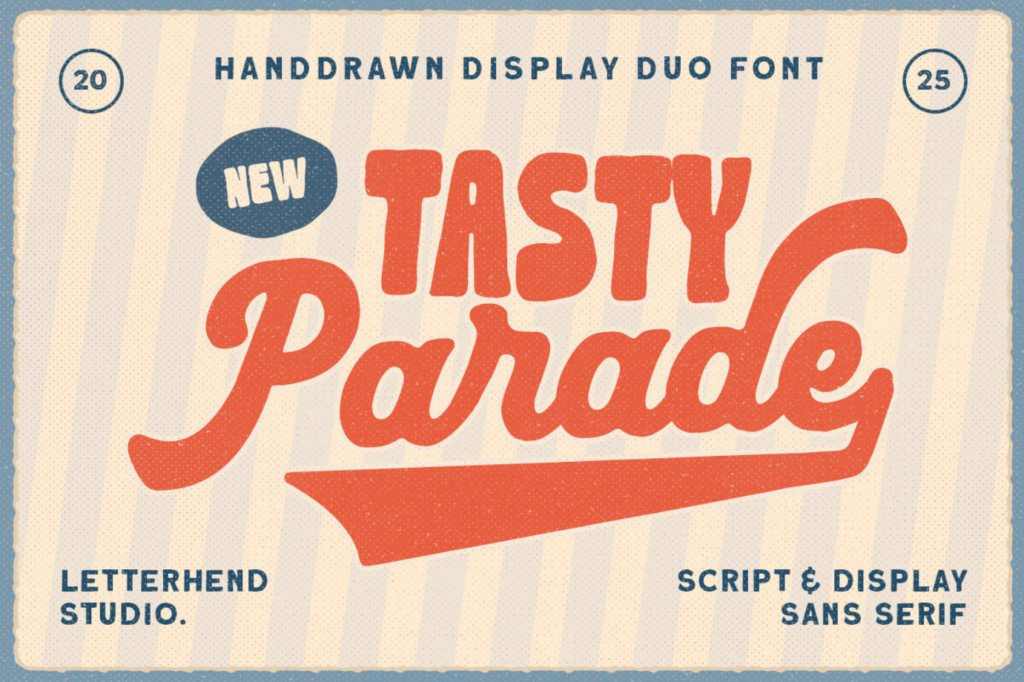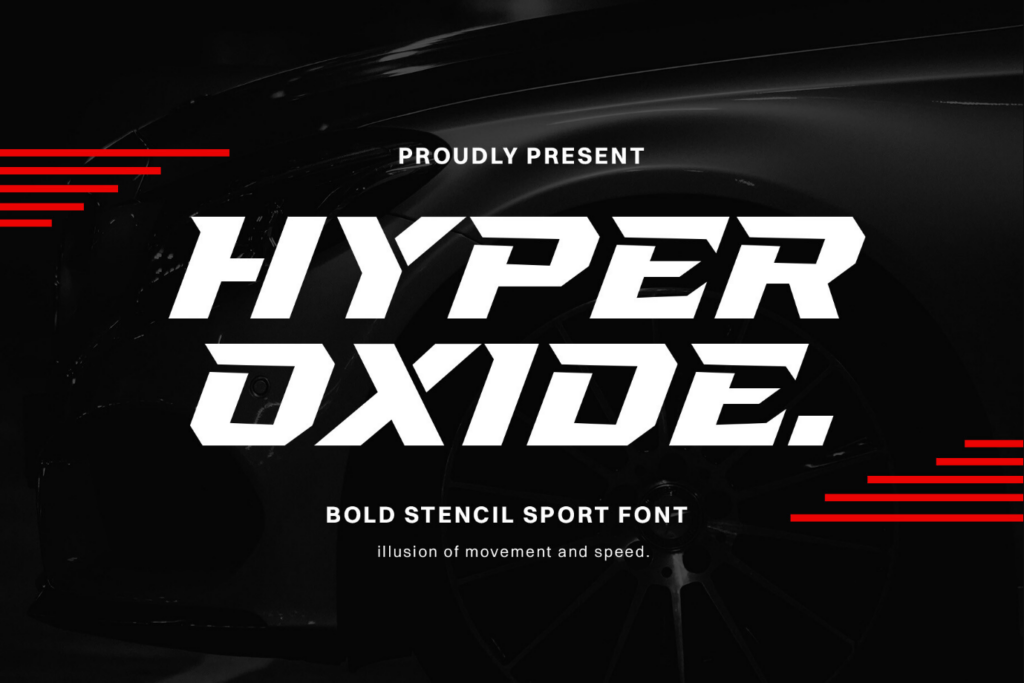
Are you searching for decorative and uniquely themed ornamental display fonts to elevate your designs? Finding the perfect font can feel daunting, especially when you want something that truly captures your vision. A well-chosen font can transform your project and draw your audience in, creating an unforgettable experience.
This curated collection of decorative and uniquely themed ornamental display fonts offers a delightful solution. Each font is selected for its unique flair and ability to enhance your designs. Whether you’re creating invitations, posters, or branding materials, these fonts will help you express your creativity and make a statement.
Get ready to explore a treasure trove of styles that inspire! From whimsical scripts to elegant serifs, you’ll discover fonts that suit a variety of themes and projects. Let these decorative and uniquely themed ornamental display fonts spark your imagination and breathe new life into your creations!
Chinese Dragon Font
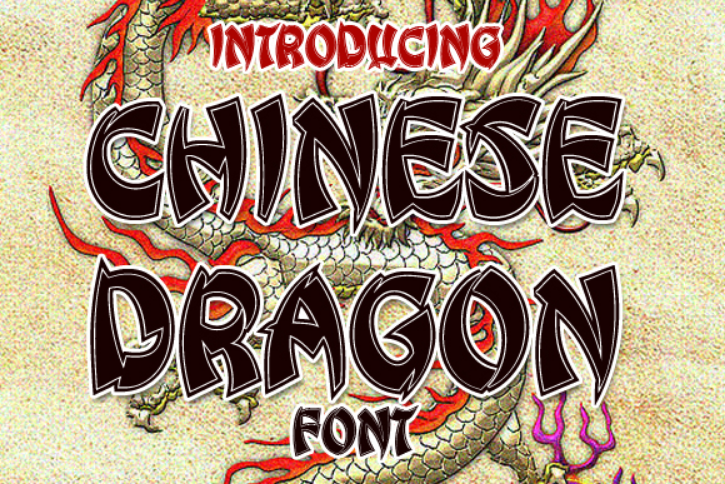
Transform your crafting projects with stunning wall art, greeting cards, or festive decorations. The intricate design of this font adds an elegant touch to any item, making your creations stand out beautifully. It’s ideal for personal or professional projects that celebrate culture and artistry. Crafters, especially those using Cricut, will find this font particularly beneficial. Wedding designers looking to incorporate themed elements will also appreciate its unique style. Its bold features capture attention, making it a fantastic choice for various creative endeavors. When using this font for cutting projects, ensure your blade is sharp for clean edges. Adjust the settings based on the material to achieve the best results. With a bit of practice, you’ll master working with these beautiful characters. Crafting with this font saves time and effort by eliminating the need for complex hand lettering. The bold design stands out, requiring less embellishment. This convenience allows you to focus more on the overall design and less on the font itself.
Best for: Asian-themed graphic designs
Shamrock Font
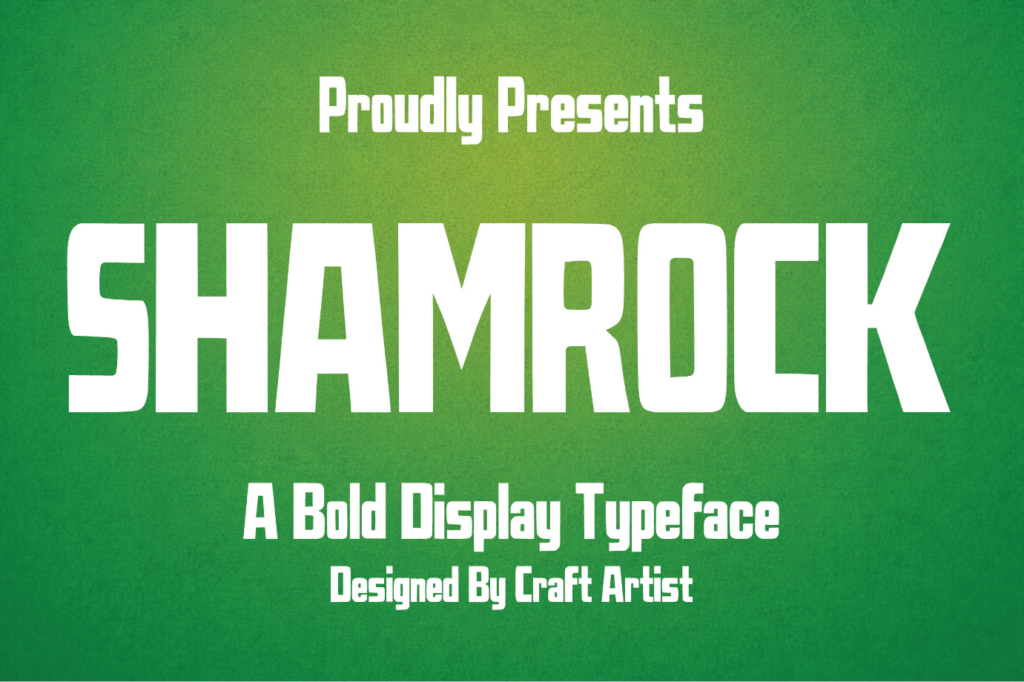
Transform your seasonal decor with vibrant banners and eye-catching wall art using this bold typeface. Its playful design is ideal for creating cheerful invitations and festive signs, especially for St. Patrick’s Day celebrations. Let your creativity shine by incorporating this unique font into your designs. Crafters and designers who love making eye-catching visuals will find great value in this font. It’s especially suited for those working with tools like Cricut or Silhouette machines. Wedding planners can also use it for charming stationery and signage that adds a personal touch. For those new to crafting, the clear geometry of the font makes cutting easy and precise. It can be effortlessly adjusted for various projects, whether you are making vinyl decals or printed items. Enjoy seamless compatibility with most design software as well. One standout feature is its versatility, saving time in design and execution. This font requires minimal adjustments, providing a polished look right off the bat. Spend less time fussing over details and more time enjoying your creative journey.
Best for: St. Patrick’s Day celebrations
Pirate Font
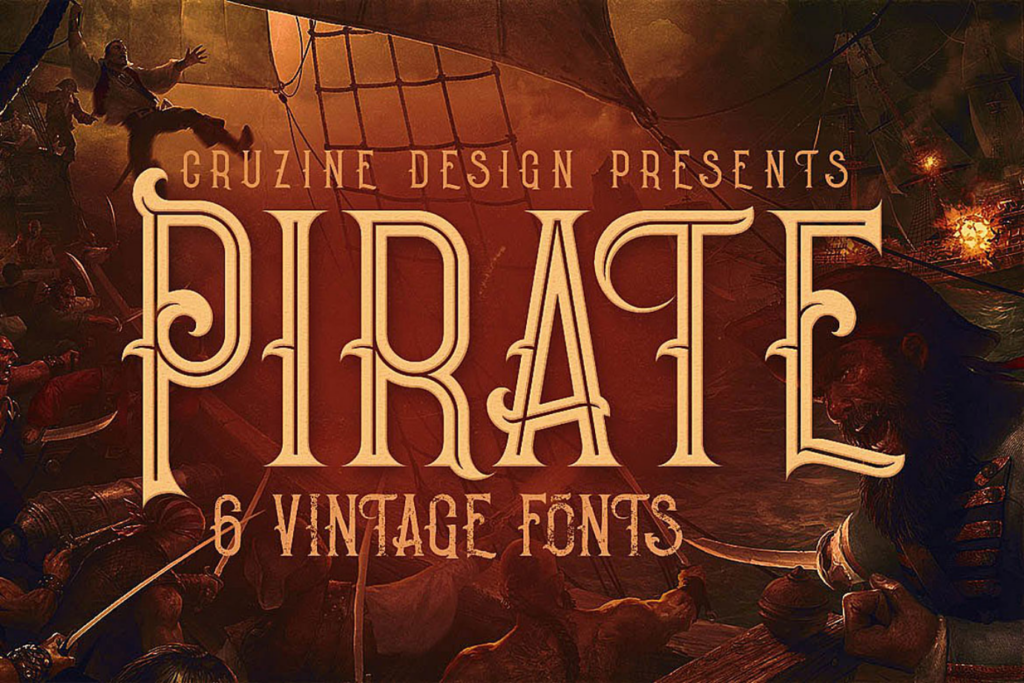
Create whimsical invitations, treasure maps, or fun signage with this versatile font. It’s ideal for themed parties, pirate-themed events, or children’s crafts. Let your creativity sail as you craft unique, eye-catching displays that capture the adventurous spirit of the high seas. Crafters seeking a playful touch will love this font’s charm. Ideal for Cricut owners, scrapbookers, and home decor enthusiasts, it enhances a variety of projects. Whether you’re crafting for kids or themed celebrations, this font adds flair to your creations. For smooth cutting results, use a medium-weight cardstock. Adjust your blade settings appropriately for clean lines and crisp edges. This font is designed to cut easily, ensuring your projects come out beautifully every time. Save time with pre-designed letters that require minimal adjustments. Enjoy the flexibility of various styles and finishes without the hassle. Achieve stunning results quickly, allowing you to focus on what matters most—bringing your creative vision to life!
Best for: treasure maps and party invitations
Banana Cheese Font
For festive greeting cards and cheerful gift tags, this whimsical typeface brings joy to your holiday creations. Its decorative flair adds a touch of enchantment, making your projects pop with visual interest. Use it for any seasonal decor that needs a sprinkle of magic. Crafters who love to create personalized holiday items will find this font especially delightful. Whether you’re a Cricut owner or a scrapbook enthusiast, this typeface will elevate your designs. It’s great for anyone looking to infuse their projects with warmth and nostalgia. When cutting with a Cricut, ensure the font is sized correctly for the best results. Test different sizes to see how the decorative elements play out in your project. This will help you achieve the perfect balance in your designs. With PUA encoding, accessing all the unique glyphs and ligatures is a breeze. This feature saves time, enabling quick customization of your typography. Enjoy creating without the hassle of complicated installations or extra software.
Best for: playful children’s party invitations
Pink Line Font
For chic branding projects, the Pink Line Font is an ideal companion. Its elegant, unbroken lines lend a modern touch to labels, business cards, and packaging designs. Use it to create standout visuals that truly reflect your creative vision. Crafters and designers seeking a minimalist aesthetic will find great value in this font. It appeals to a wide range of creators, from Cricut enthusiasts to wedding planners. Those looking for stylish typography will appreciate its unique flair. When using the font for cutting projects, ensure your machine settings are optimized for delicate lines. A slower cutting speed can help maintain the integrity of the design. This will prevent any breakage during the cutting process. One of the key benefits is its versatility across various mediums. Whether printed or cut from vinyl, it provides a professional finish without the hassle. Save time by using this font for multiple applications, enhancing your creative workflow.
Best for: playful party invitations
Rainbow Stacked Font
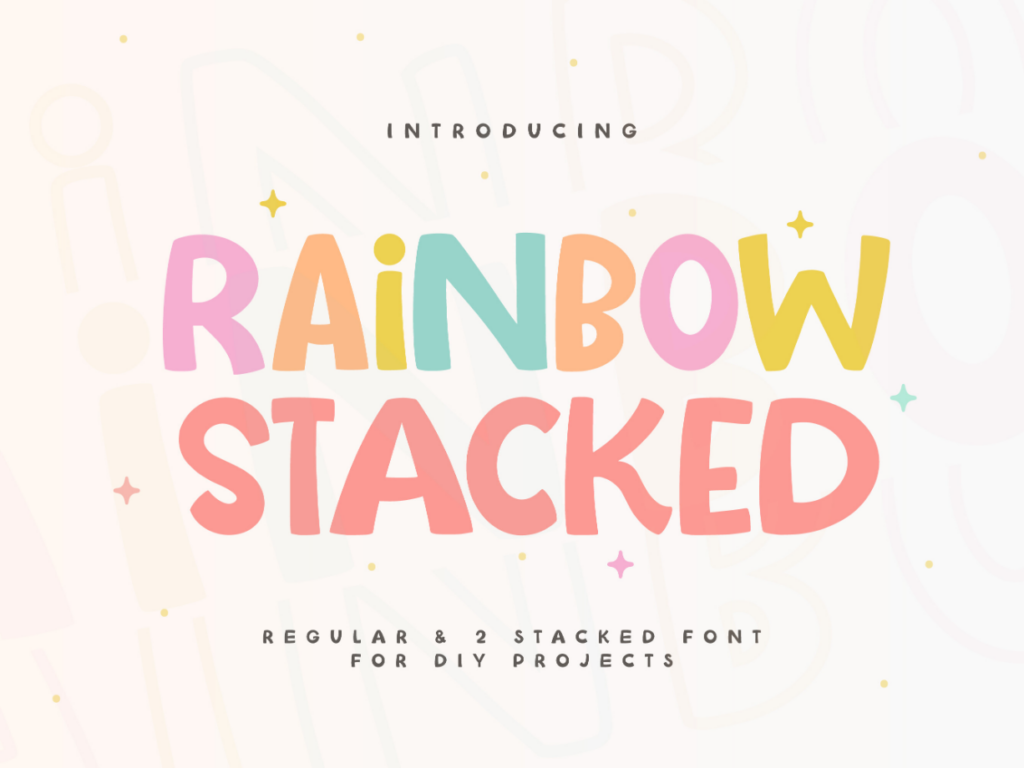
Brighten up birthday banners and custom t-shirts with this joyful font. It’s ideal for DIY projects that require a cheerful touch. Create stunning classroom decorations that engage students and spark creativity. Crafters who love working with Cricut machines or vinyl cutting will find this font especially appealing. It adds a fun element to projects, capturing the attention of both children and adults alike. Let your imagination run wild with its playful design. When cutting with a Cricut, the smooth outlines ensure easy weeding and layering. This feature allows you to spend less time fussing with intricate details. Enjoy a seamless crafting experience while creating vibrant designs. By using this font, you save time on design work and get impressive results. Its layered text effects reduce the need for complex setups. Spend more time crafting and less time stressing about perfecting your projects.
Best for: vibrant party invitations and decor
Birthday Party Font
Looking for a lively way to celebrate? Create vibrant birthday invitations or festive party banners using this delightful display font. Its playful design adds a joyful touch to any celebration, making it a standout choice for memorable events. Crafters and event planners will find this font especially helpful. It’s ideal for those who love personalized designs, including Cricut owners and DIY enthusiasts. Wedding designers can also adapt it for cheerful bridal showers or birthdays. When using a cutting machine, make sure to adjust the blade settings for optimal results. This font is designed for easy cutting and application, allowing for smooth shapes and crisp lines. Practice on scrap material first to ensure perfect execution. Save time and elevate your creations with this user-friendly font. Its all-caps style and included numbers make it quick to customize. You can easily create eye-catching designs without spending hours on complex layouts or formatting.
Best for: futuristic-themed graphic designs
Ready to Create?
In this roundup, we explored 11 decorative and uniquely themed ornamental display fonts. These stunning typefaces can elevate your designs, adding flair to everything from invitations to branding projects. With their distinctive styles, they are perfect for making a memorable impression and showcasing your creative vision. As you embark on your design journey, what stories will you tell with these fonts? Remember, each letter can spark imagination. Embrace your creativity and let these beautiful typefaces inspire you to craft something truly extraordinary!